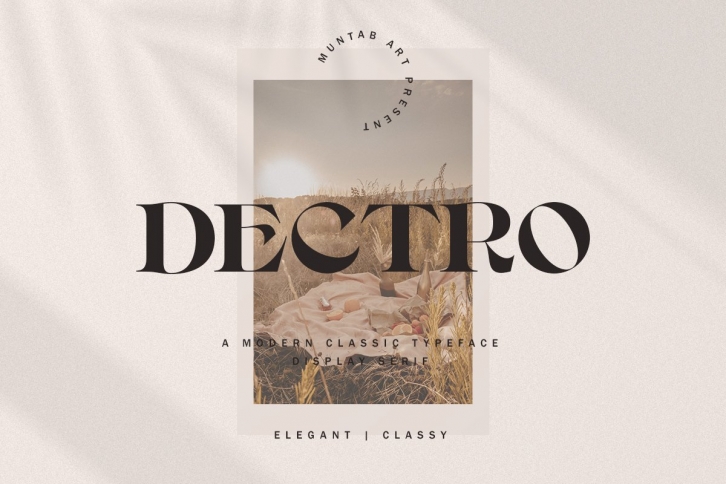
Dectro is a beautiful font that was designed by Muntab Art. It's a great choice for designers and creatives who need such a font. It was released on August 7, 2021 and the file size is 13.57 MB. Dectro may give a more youthful, expressive and casual look to your project. It is a very beautiful, refined, elegant, and high-quality font.